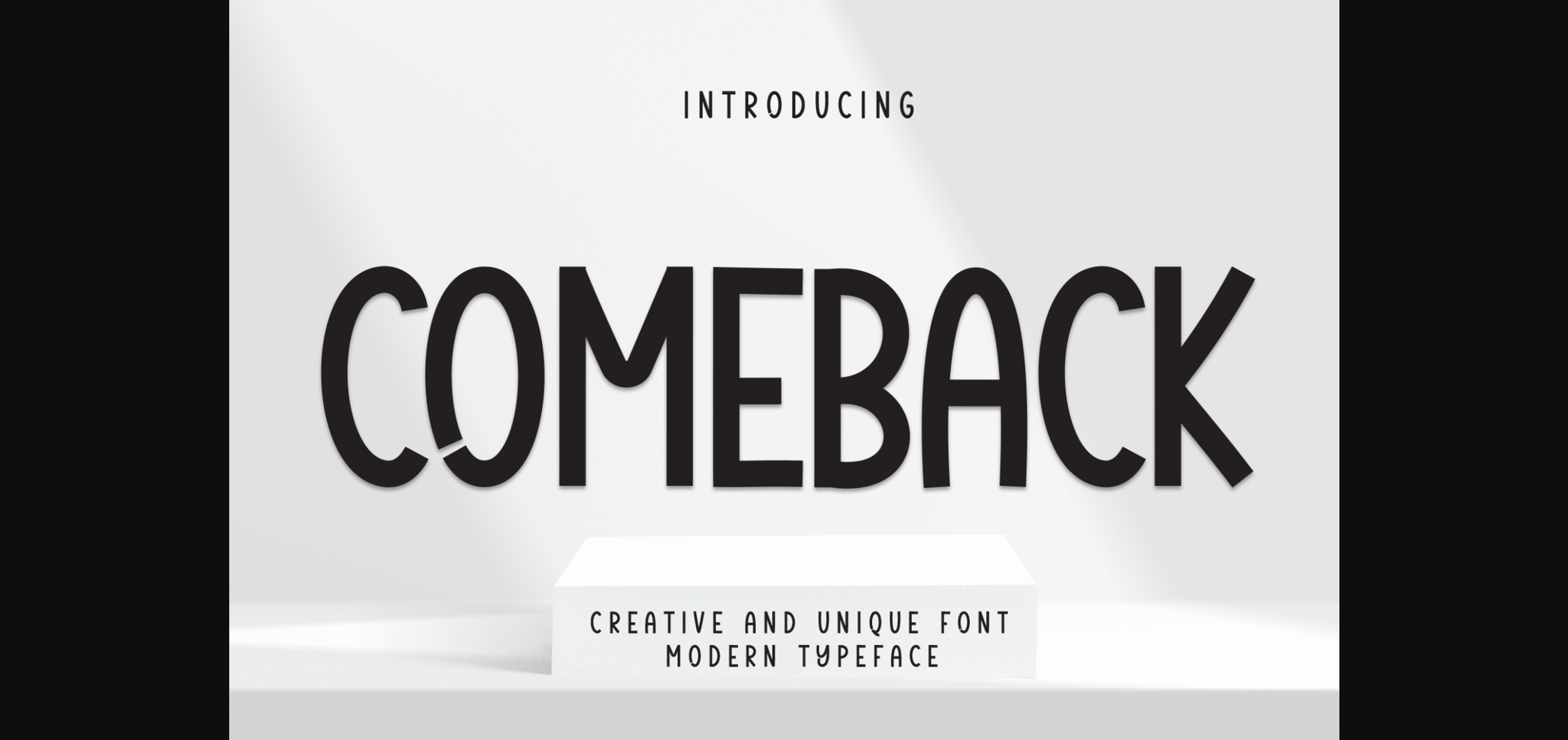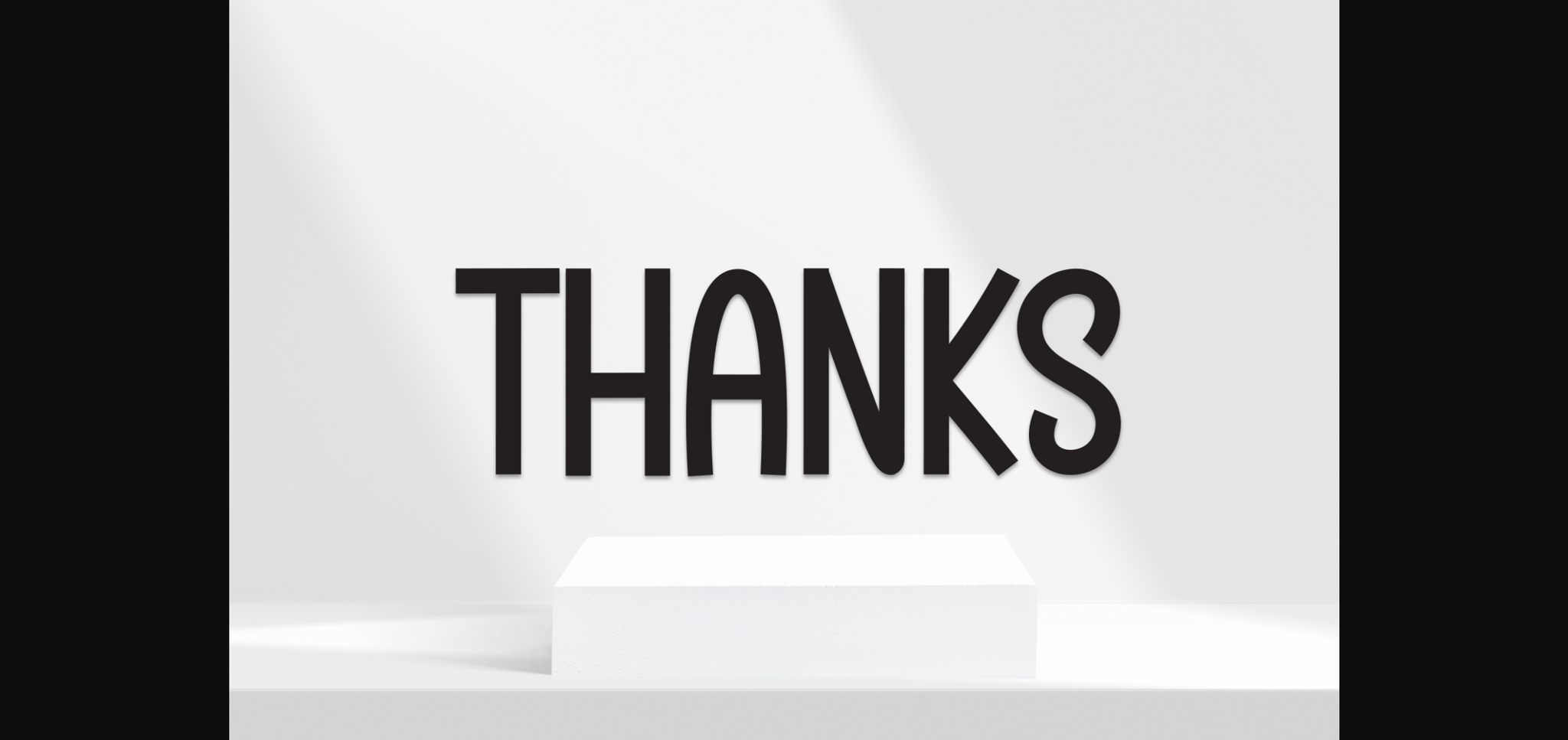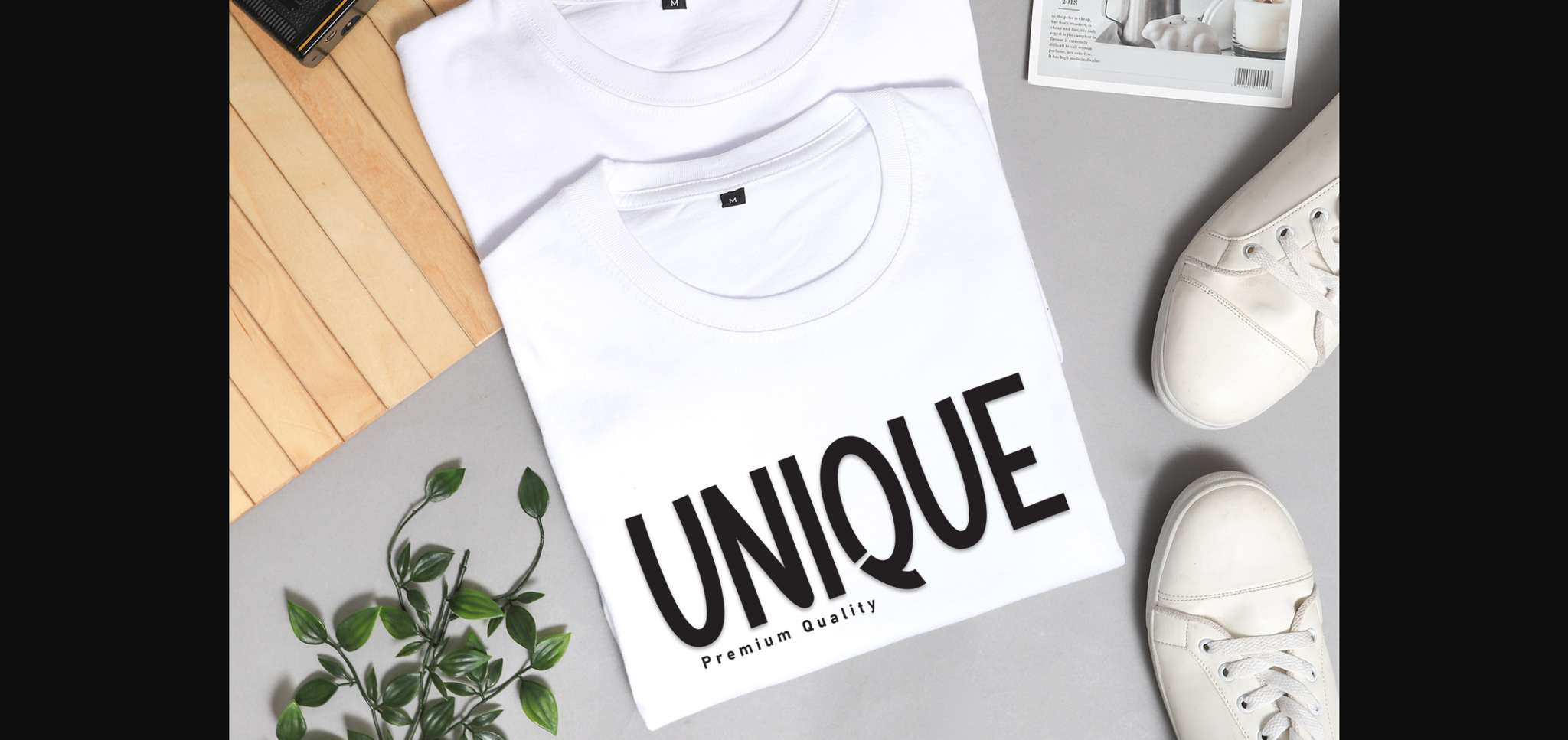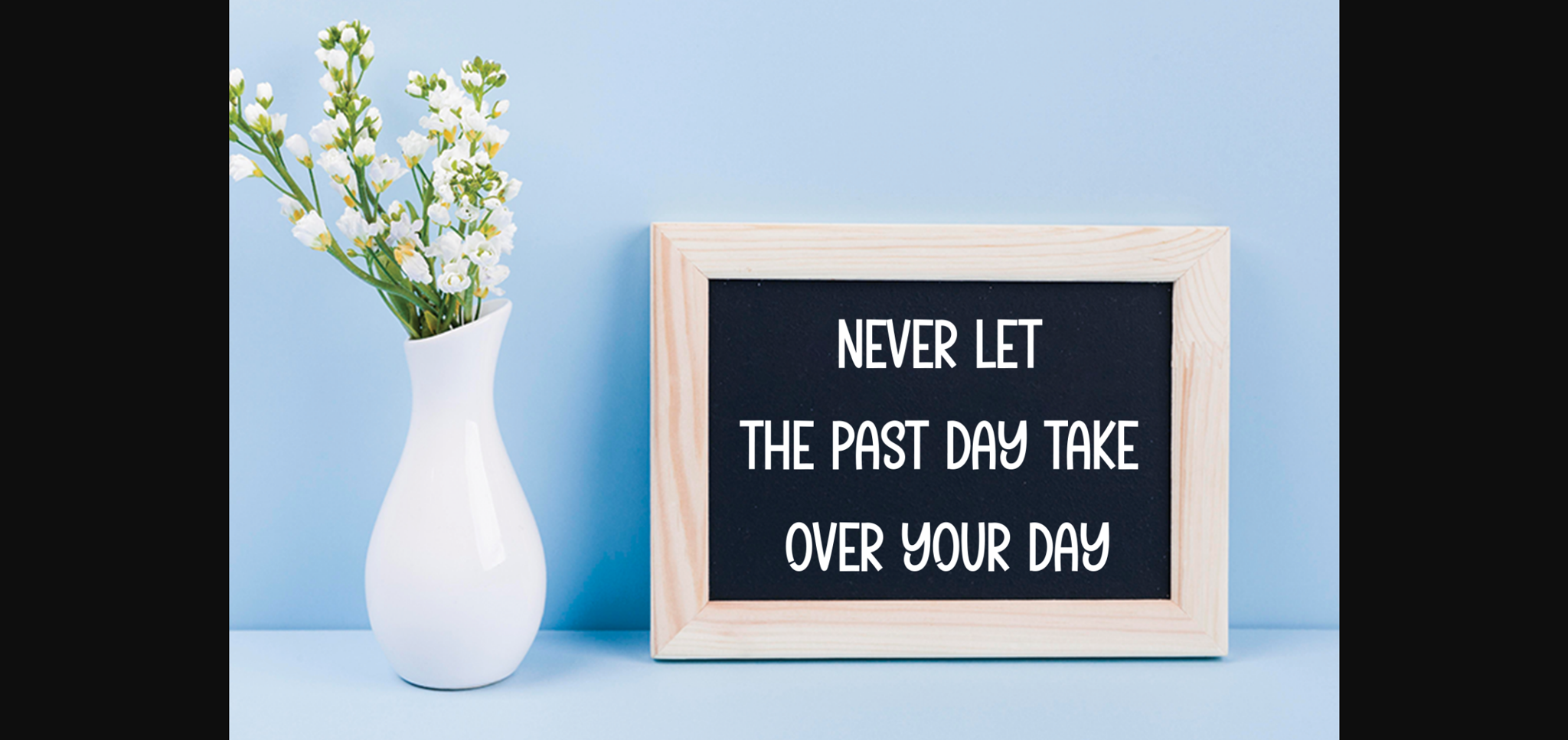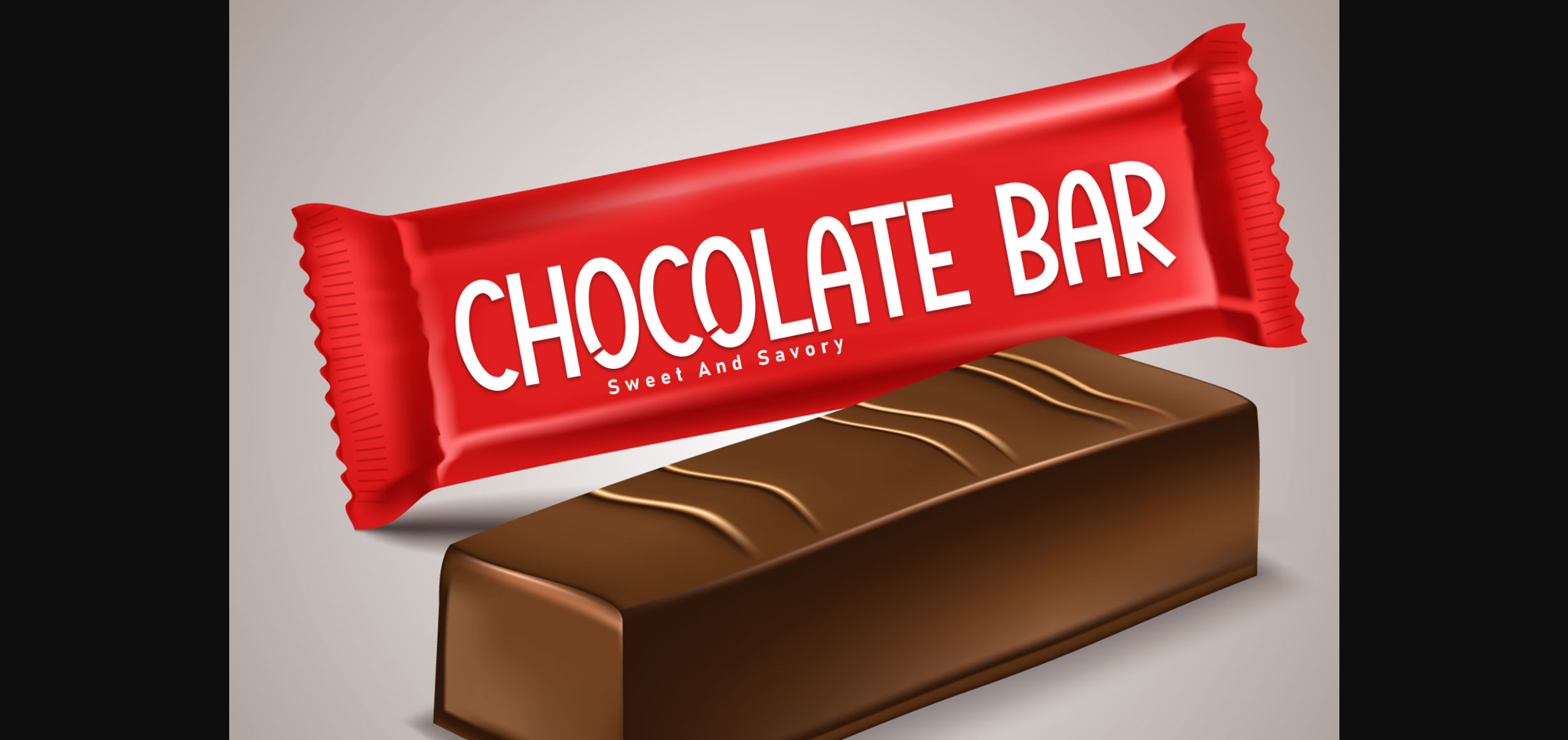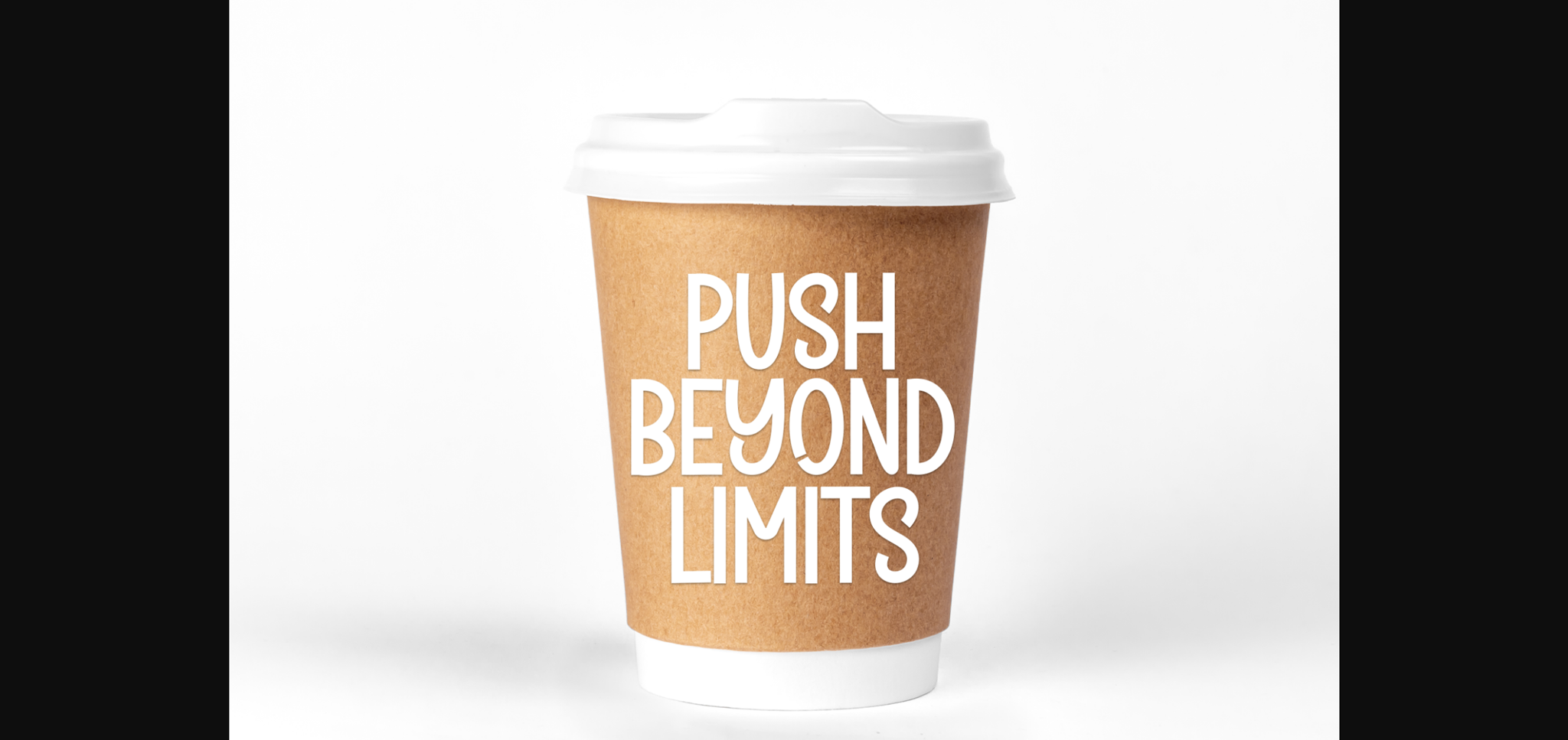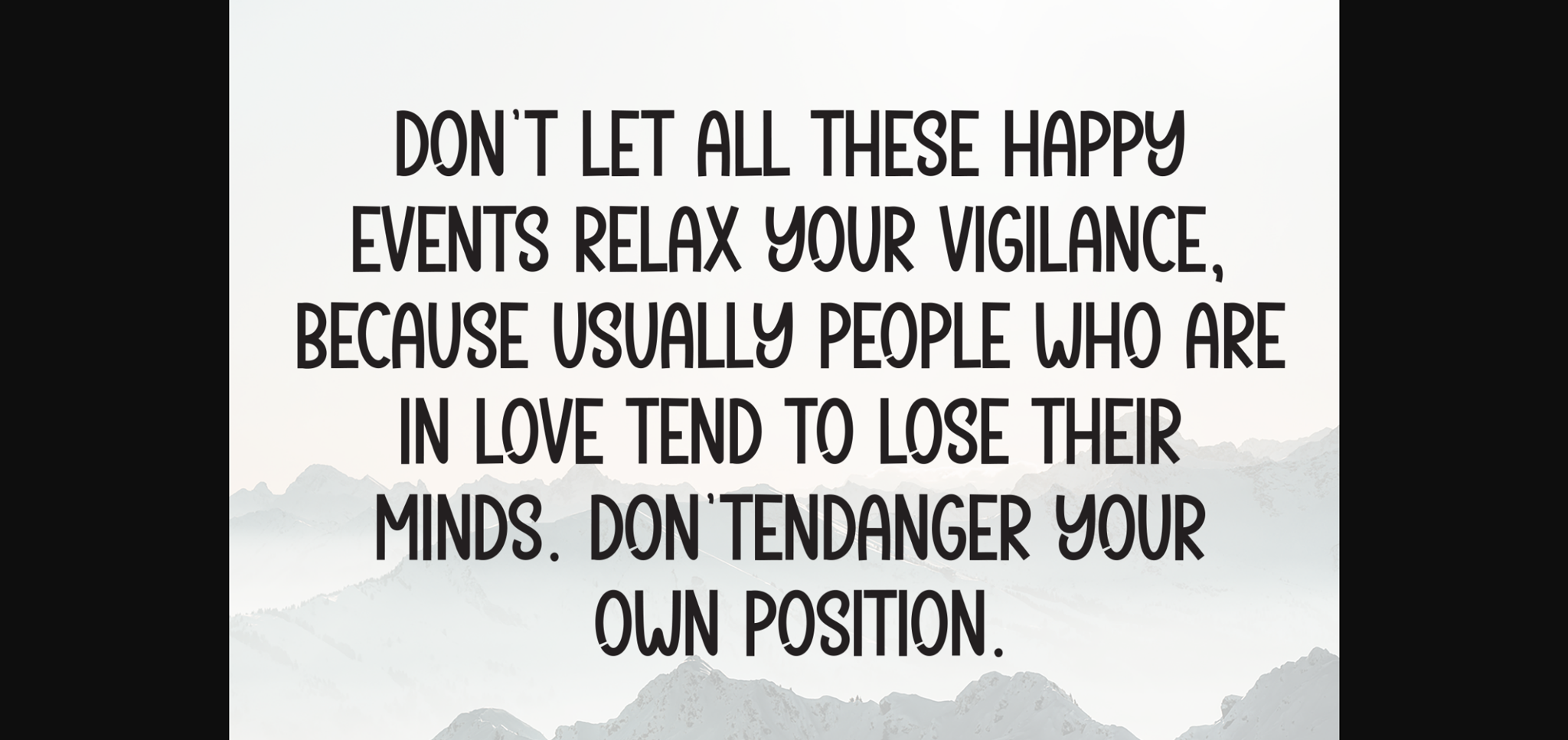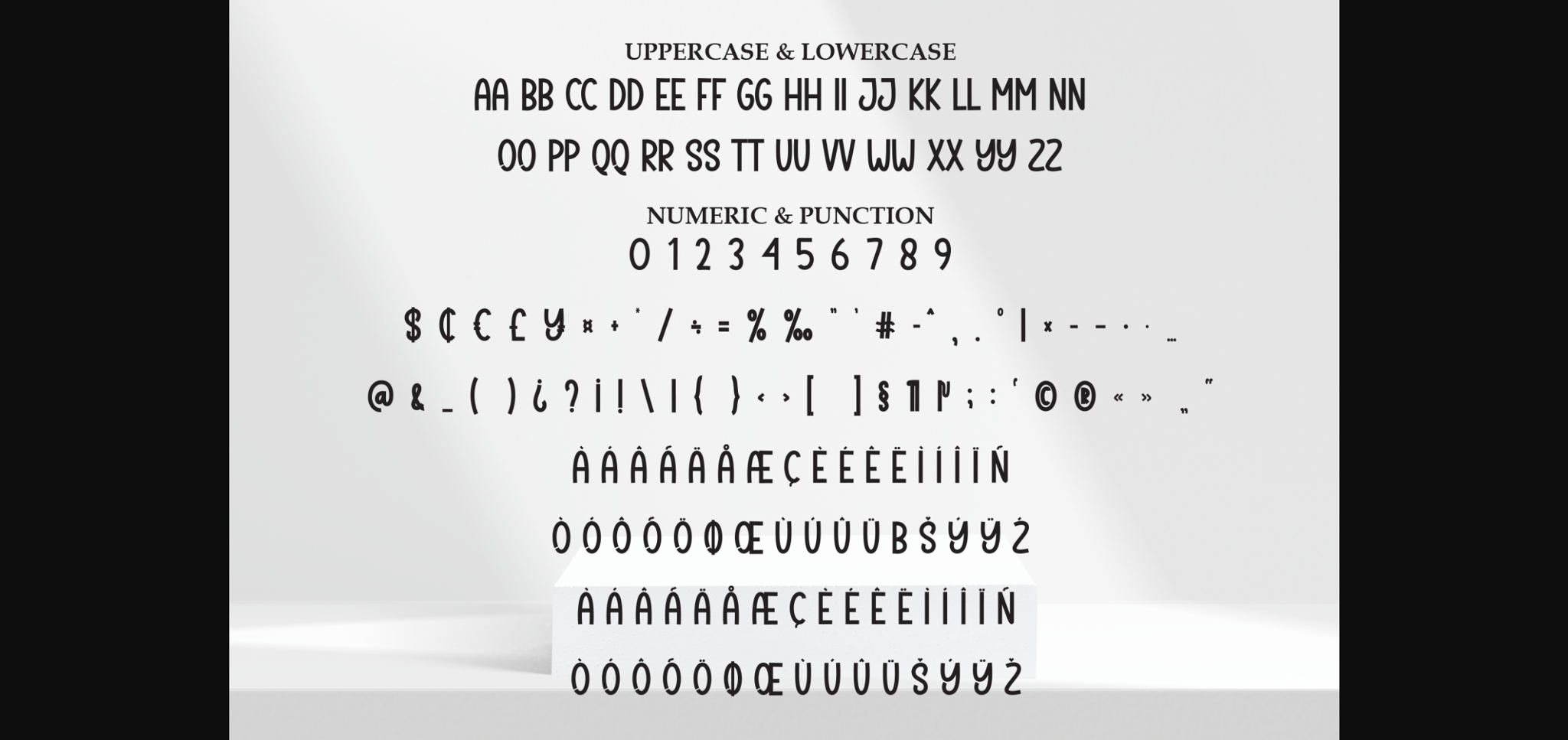
Comeback is a sweet and friendly sans-serif font. Cute yet versatile, this font is ideal for writing wedding invitations, cards, or any other design that might need a lovely touch!